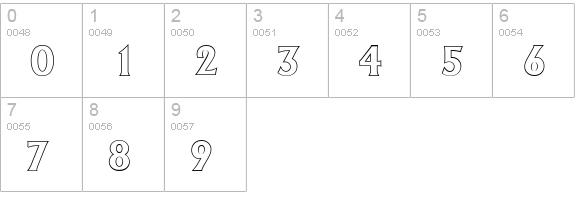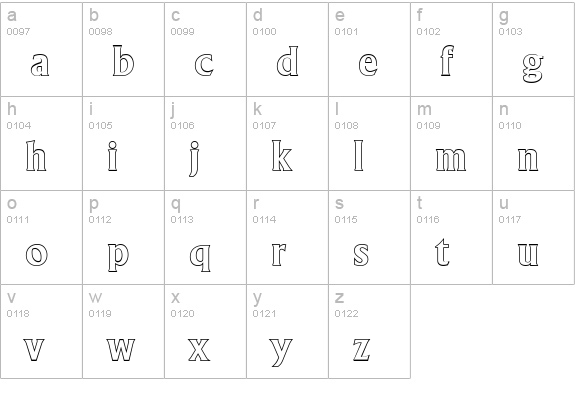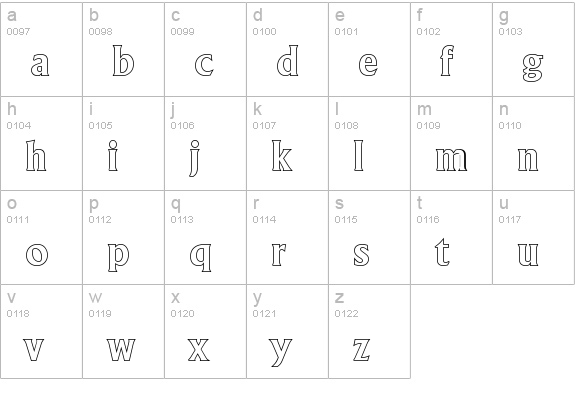
AdelonOutline-Bold is a strong, high-contrast variant in the AdelonOutline typeface family \xE2\x80\x94 well suited to headlines, attention-grabbing titles, and strong calls-to-action.
AdelonOutline-Bold is a striking and bold typeface that exudes confidence and elegance. With its clean lines and modern appearance, this font is perfect for making a statement in your designs. The strong and commanding presence of AdelonOutline-Bold makes it ideal for titles, headlines, and other attention-grabbing elements. Best of all, AdelonOutline-Bold is available for free download at FontsMarket.com. Whether you're working on a professional project or a personal endeavor, this font provides a versatile and impactful option to enhance your work. Don't miss out on the opportunity to add AdelonOutline-Bold to your font collection and elevate your designs to the next level.